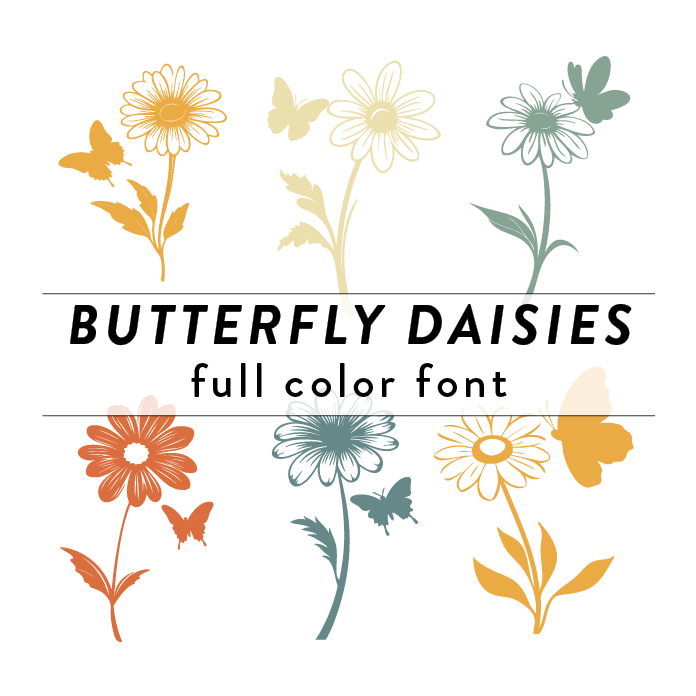
Butterflies and Daisies Full Color Font is a whimsical and intricate design featuring vibrant colors and detailed illustrations of butterflies and daisies. This font is perfect for adding a playful and floral touch to any craft or design project, with its unique blend of flowers and bugs creating a fun and eye-catching aesthetic. Ideal for creating invitations, greeting cards, decor, and other creative projects where a touch of nature and charm is desired. This font is a OTF craft font that will appear in color only when used with the silhouette software.